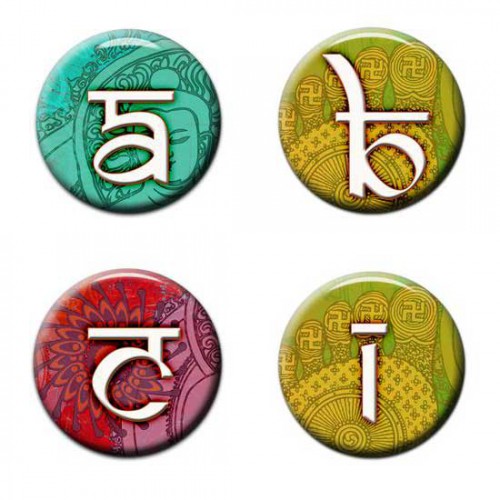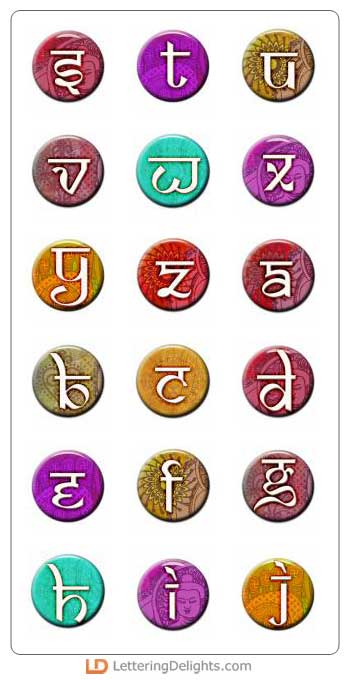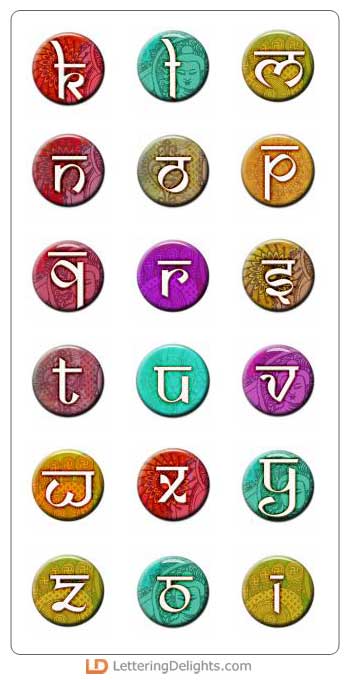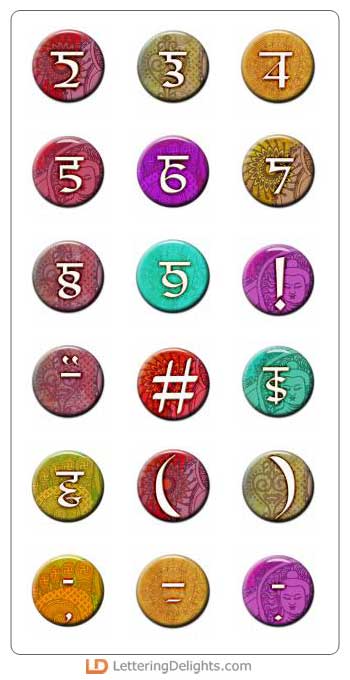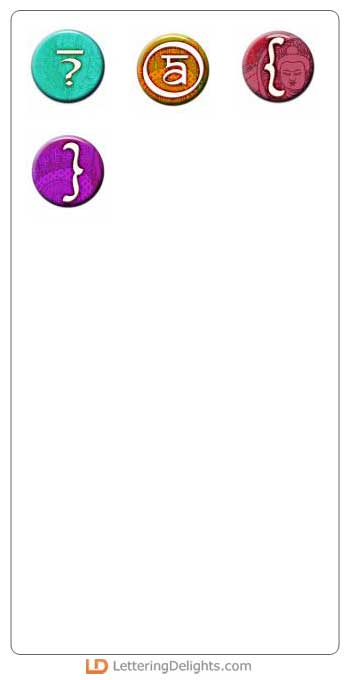
Looking for something unique for a project or a product to add that special something to your digital scrapbook page? Look no further, our Meditation alphabet is colorful with a Far East flair.